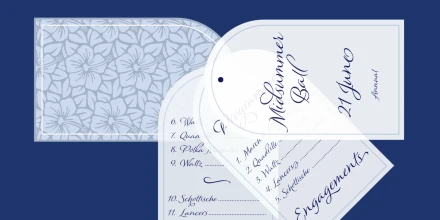
Styles included • Bold Italic • Bold Upright • Regular Italic • Regular Upright
Samantha
Samantha is a bright and cheerful font based on pointed-pen lettering and featuring slightly condensed characters and a measured rhythm. Samantha is available in upright or italic variants, each with regular and bold weights and features over 1,100 alternates and swash characters that vary in size and complexity. Samantha includes 60 ornaments and 45 catchwords, lining numerals and oldstyle and swash numerals.
OpenType Features
• Common Ligatures
• Discretionary Ligatures
• Fractions
• Old Style Numerals
• Ordinal Numerals
• Ornaments
• Stylistic Alternates
• Stylistic Sets
• Superscript
• Swashes
• Titling Capitals